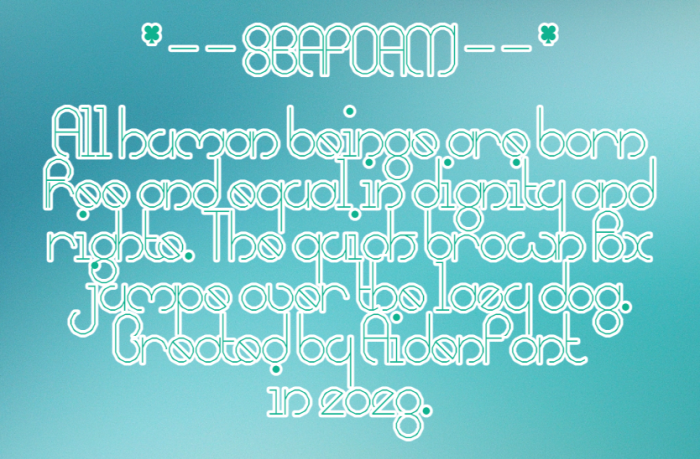
• SEAFOAM - Odd-shaped circular font.
ALTS:
` - Final f
{ - j without swash
| - t without swash
} - t with long swash
~ - f with short swash
OTHERS:
^ - Clover
I'm sorry if the dots are overlapping.